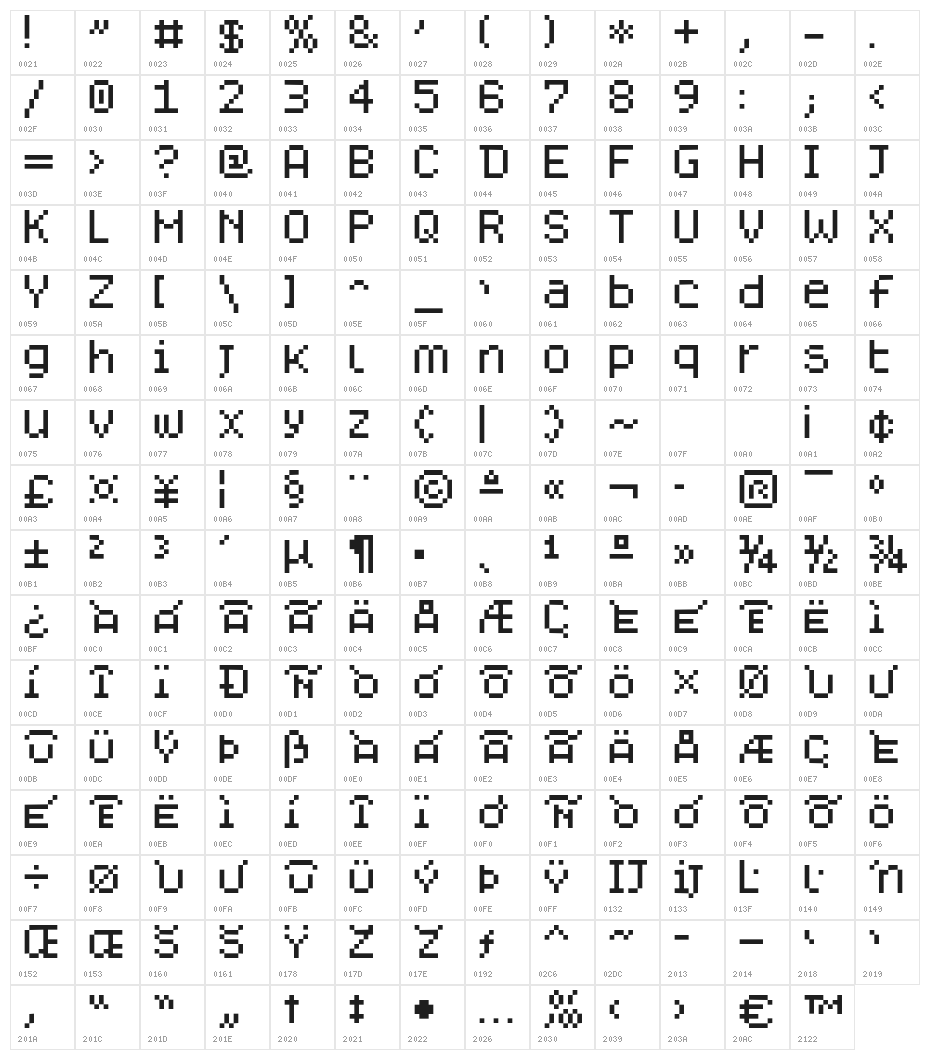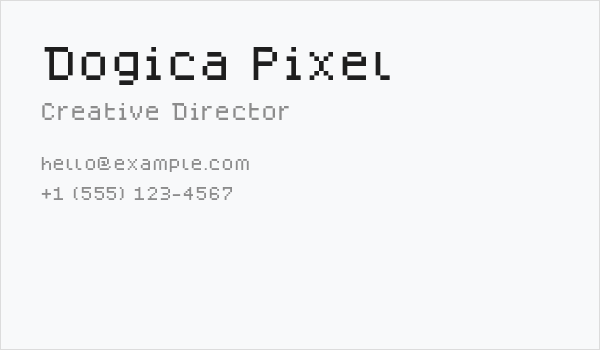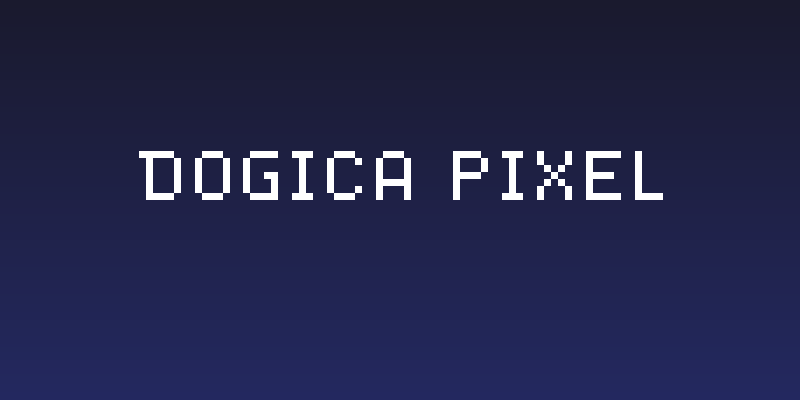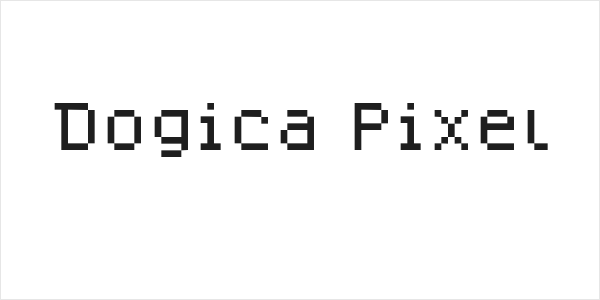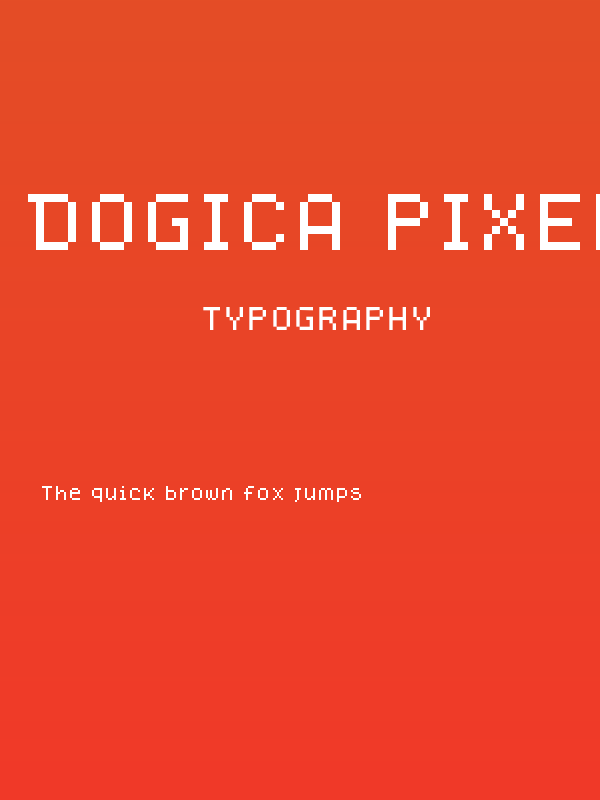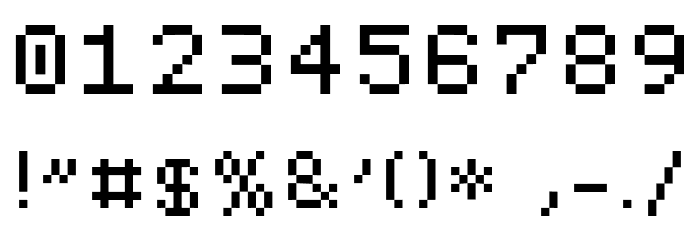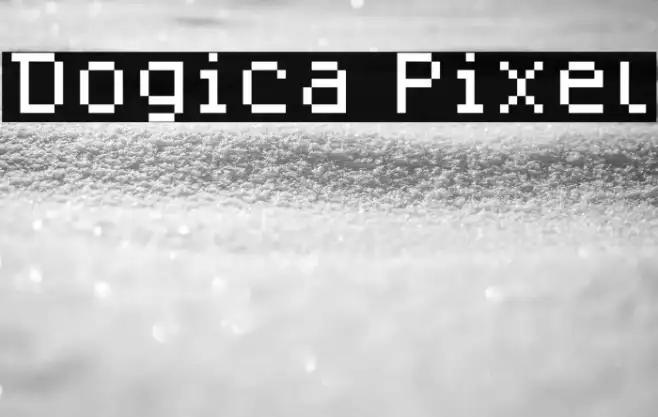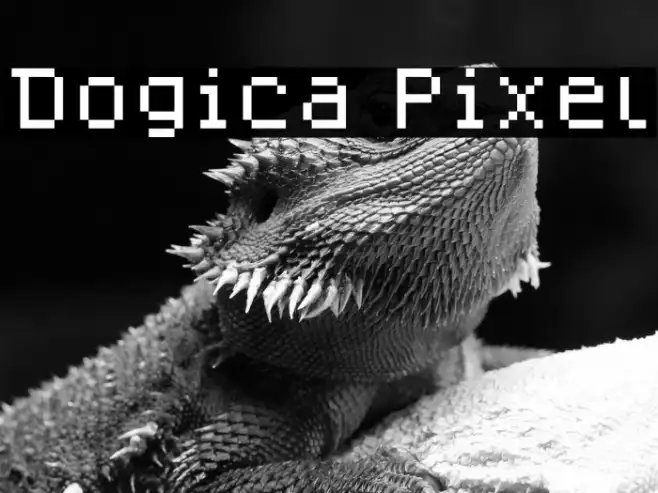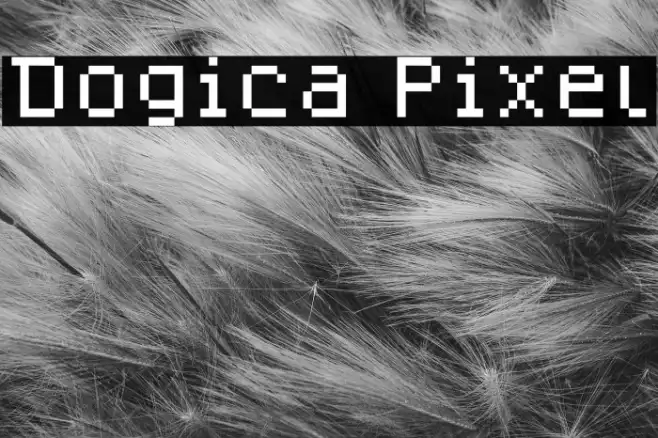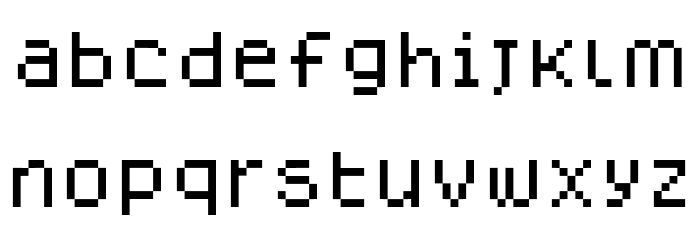
Dogica Pixel Font
Dogica Pixel Description
This font features a pixelated, retro aesthetic reminiscent of early digital displays and video games. Each character is constructed with a grid-like precision, giving it a blocky and geometric appearance. The uppercase and lowercase letters maintain a consistent height, contributing to a uniform look. The numerals and special characters are designed with the same pixelated style, ensuring cohesiveness across all elements. This font evokes a sense of nostalgia and is ideal for projects that aim to capture the essence of vintage computing or gaming.
| Use Case | Headlines, Logos, Digital Art |
| Proposed Projects | Ideal for retro-themed designs, video game graphics, digital art projects, and any creative work that seeks to evoke nostalgia for early computing. |